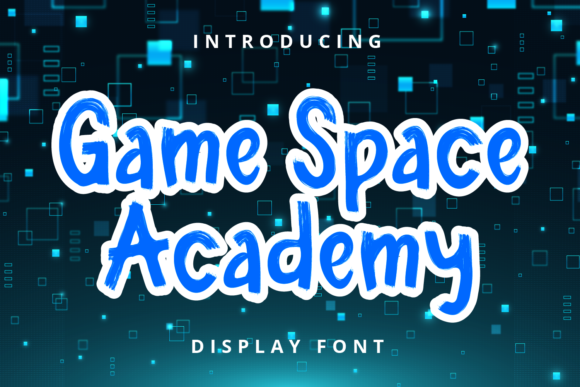
Journey into the realm of galactic aesthetics with Game Space Academy, a font that's out of this world! Immerse yourself in a universe of cosmic elegance, where every letter shimmers like a constellation. This display font, crafted by the visionary minds at Planetz studio, is a masterful fusion of strength and playfulness, ready to ignite your designs with boundless energy.
Unleash your creativity and let Game Space Academy propel your projects to new heights. Its bold, captivating strokes dance across the screen, captivating audiences with their dynamic presence. Whether it's a sports logo, a captivating poster, or an eye-catching social media campaign, Game Space Academy effortlessly leaves a lasting impression.
With its universal appeal, Game Space Academy effortlessly blends into a myriad of design aesthetics. Its versatility knows no bounds—from the vibrant energy of sports logos to the whimsical charm of children's illustrations, this font adapts seamlessly to your creative vision. Its friendly demeanor invites warmth and approachability, making it the perfect choice for branding, packaging, and any design seeking a touch of lightheartedness.
Escape the ordinary and embrace the extraordinary with Game Space Academy. Its carefully crafted characters beckon you to embark on an adventure beyond the stars, inspiring you to create designs that captivate and enthrall. Let your imagination soar as you witness your projects transformed into cosmic masterpieces.
The galaxy awaits—embrace Game Space Academy today and let your designs shine brighter than a supernova!